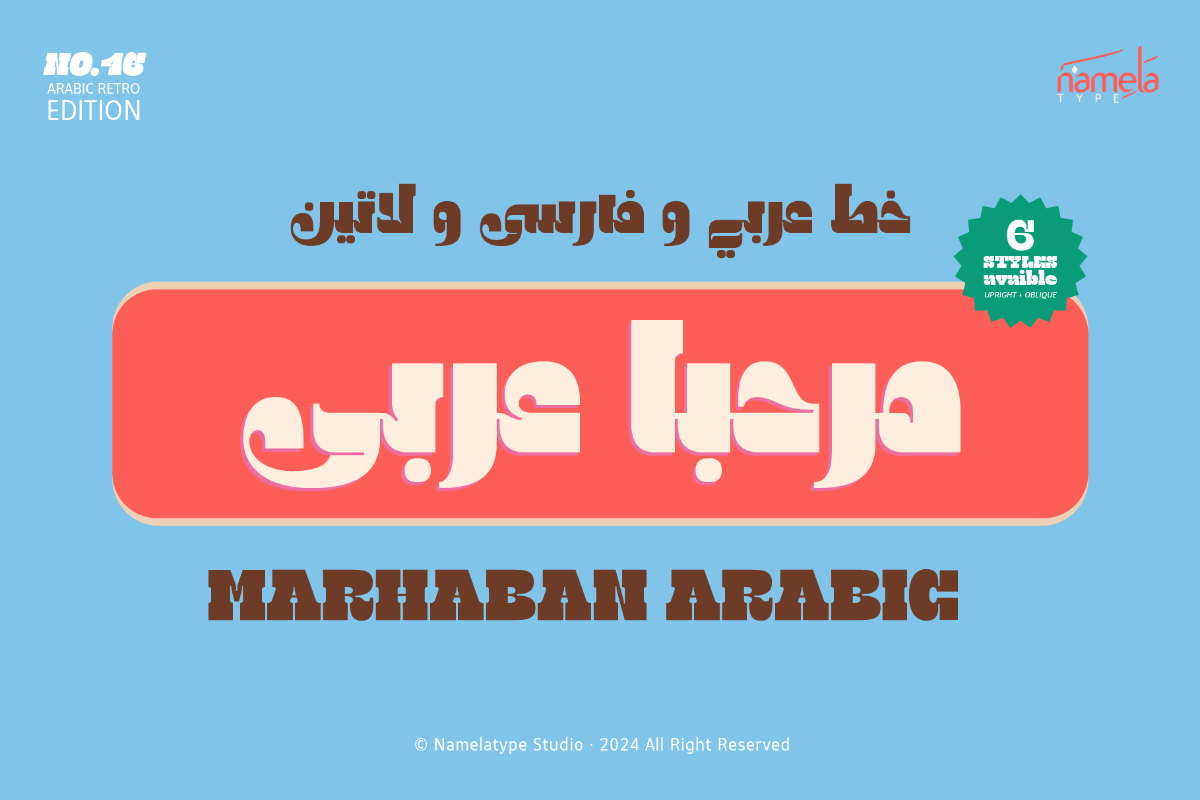
NT Marhaban Arabic Black Oblique
Marhaban Arabic Font - A Distinctive Kufic-Inspired Typeface for Branding & Apps Some typefaces do more than present words—they carry identity, culture, and intention within every letterform. Marhaban Arabic is one of those designs. Strong, structured, and deeply rooted in tradition, it transforms classical inspiration into a modern typographic voice. Developed by Namelatype, Marhaban Arabic Distinctive Kufic-inspired Font is a bold Arabic font built on a slab serif system. It draws from the g